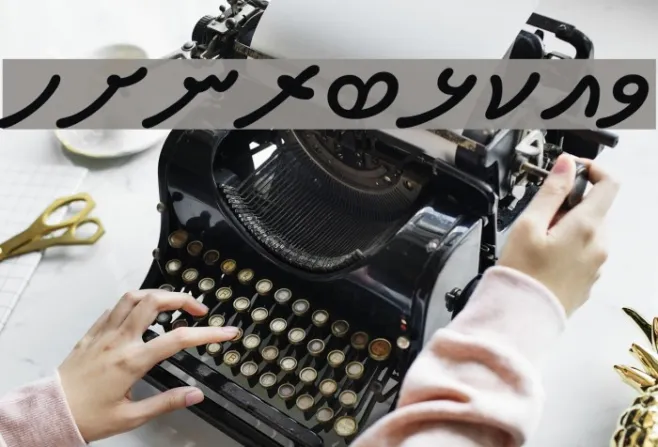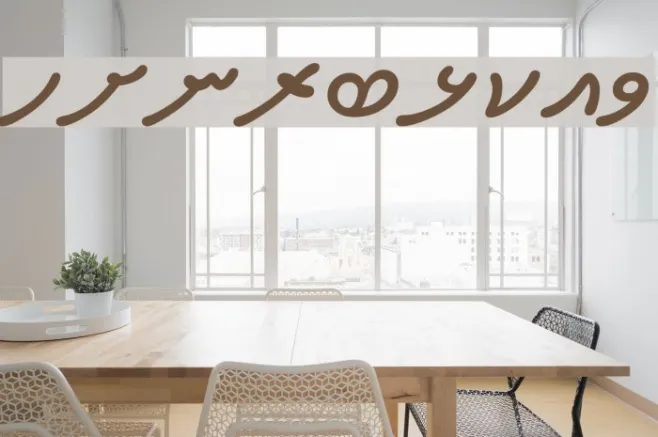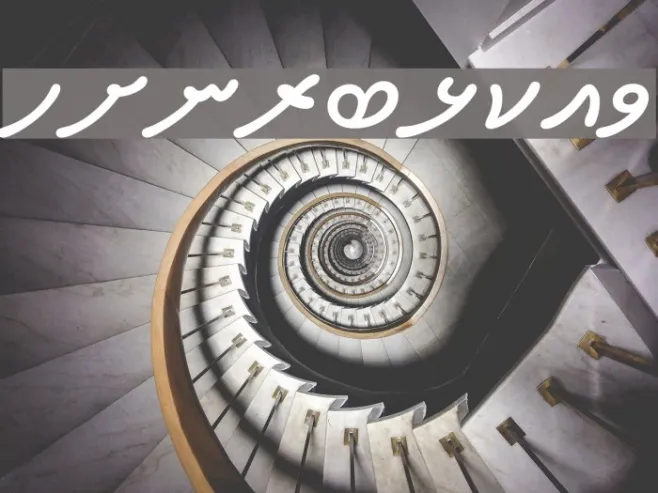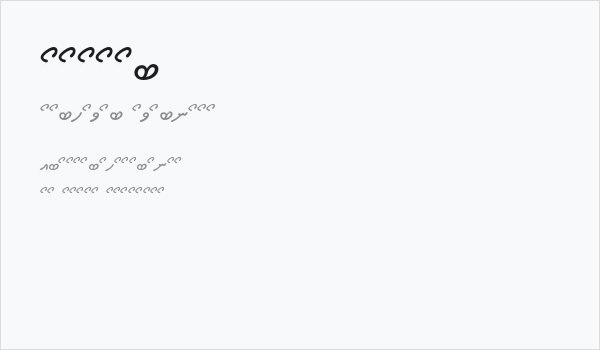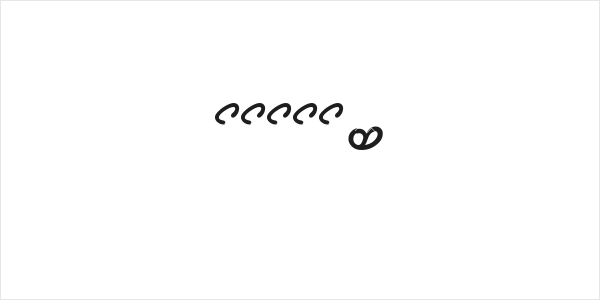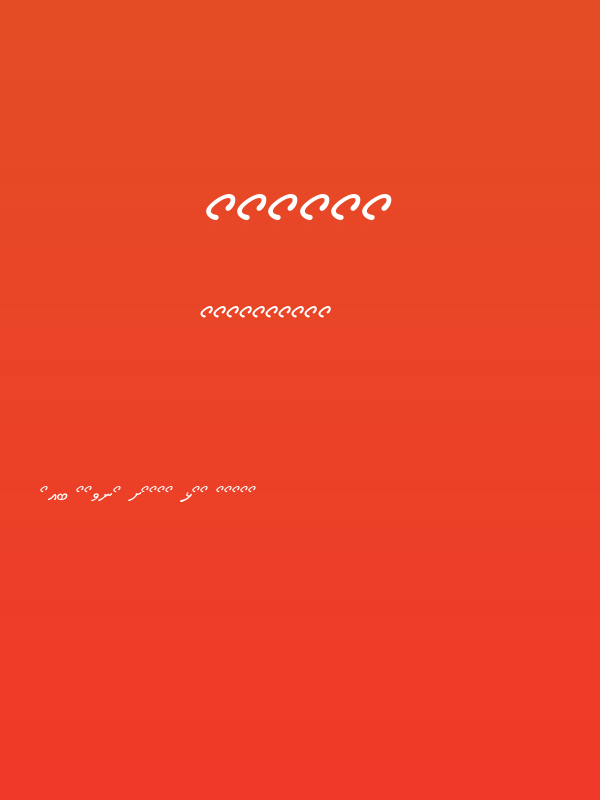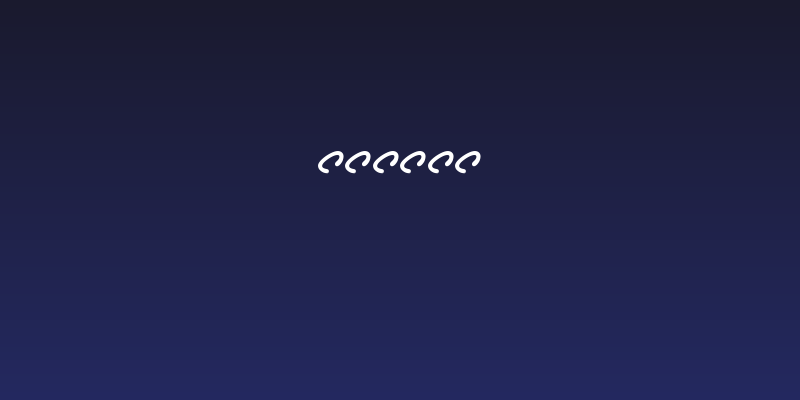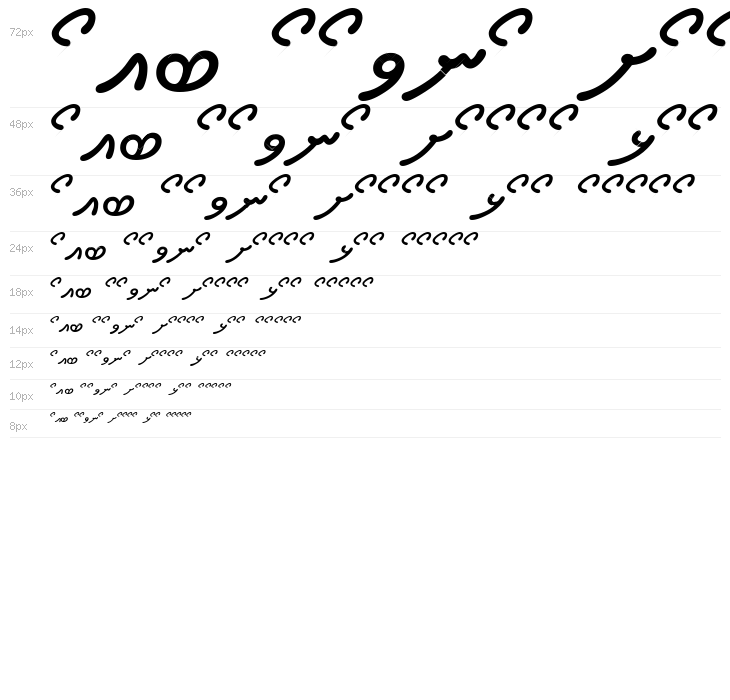
Fluzze Font
Fluzze Description
A playful, highly rounded script with consistent, thick strokes and a casual, handwritten appearance. The characters are connected and flow smoothly, giving a sense of movement and informality.
| Overall Style | Playful, Decorative |
| Use Case | Logos, Headlines, Posters, Greeting cards |
| Proposed Projects | ChildrenΓ’β¬β’s books, playful branding, greeting cards, informal invitations, creative posters. |